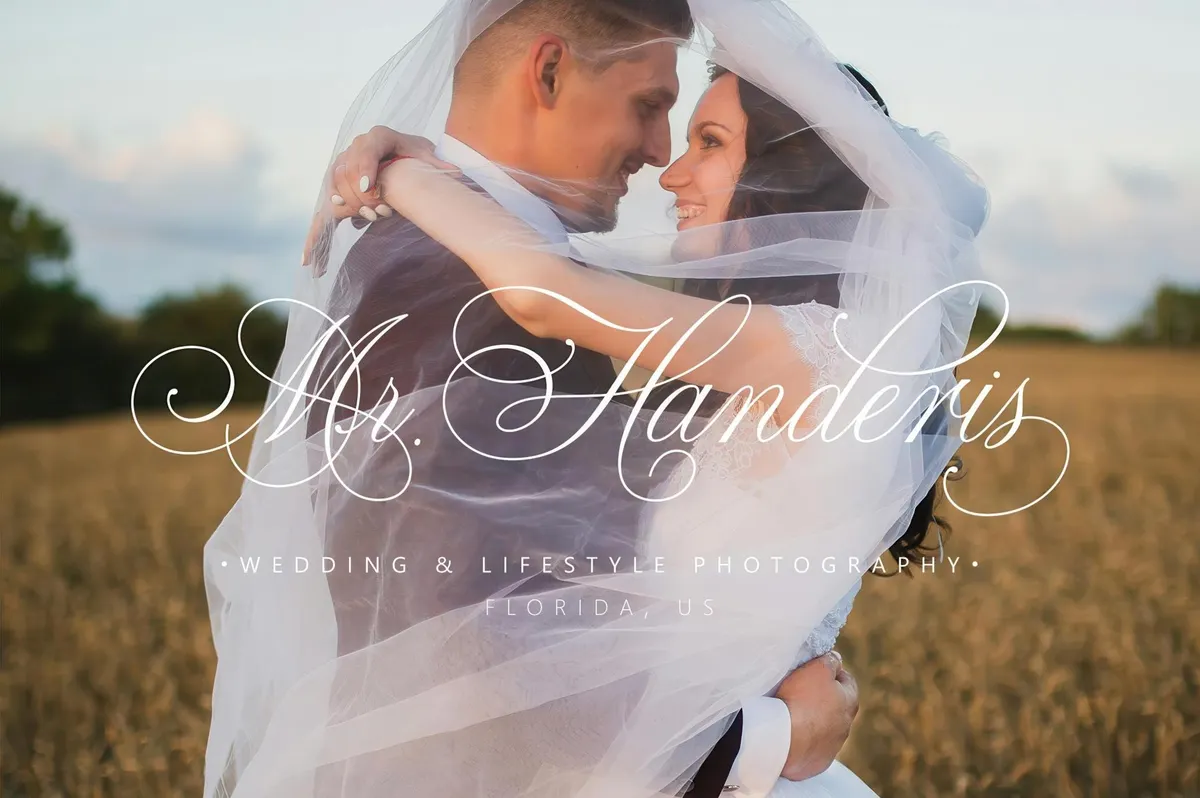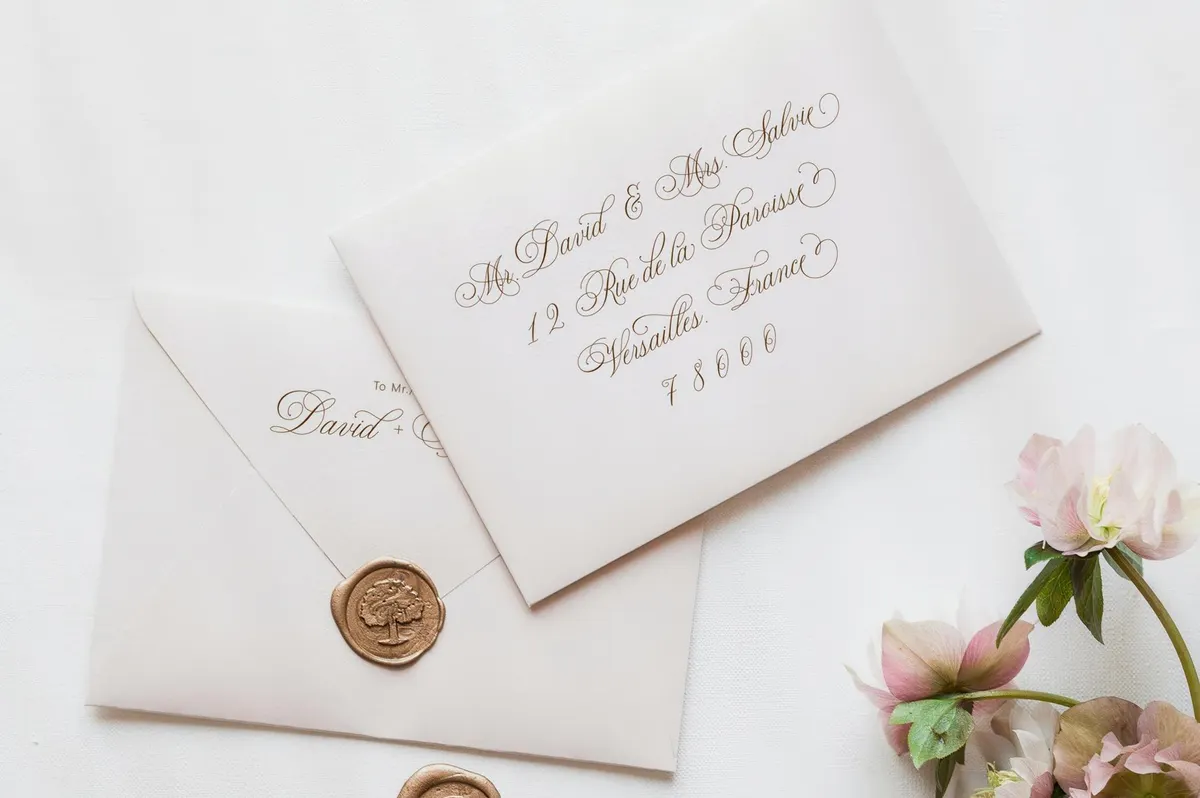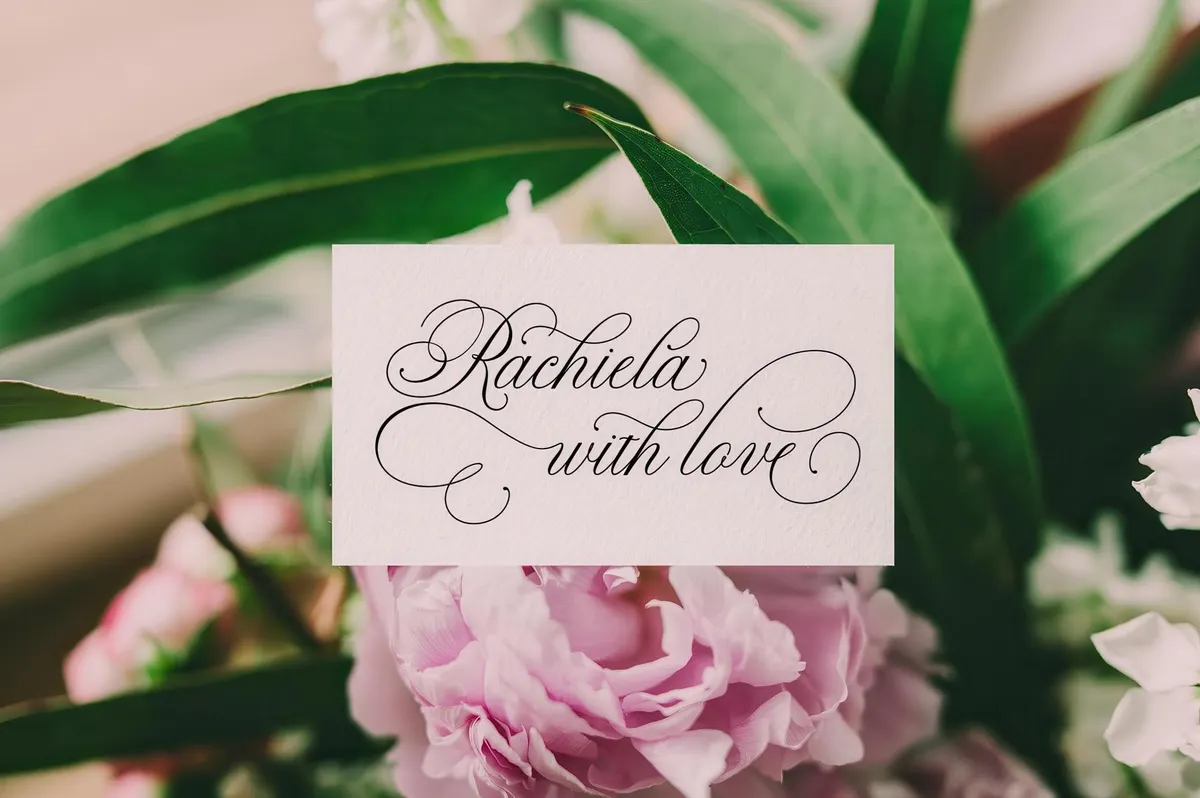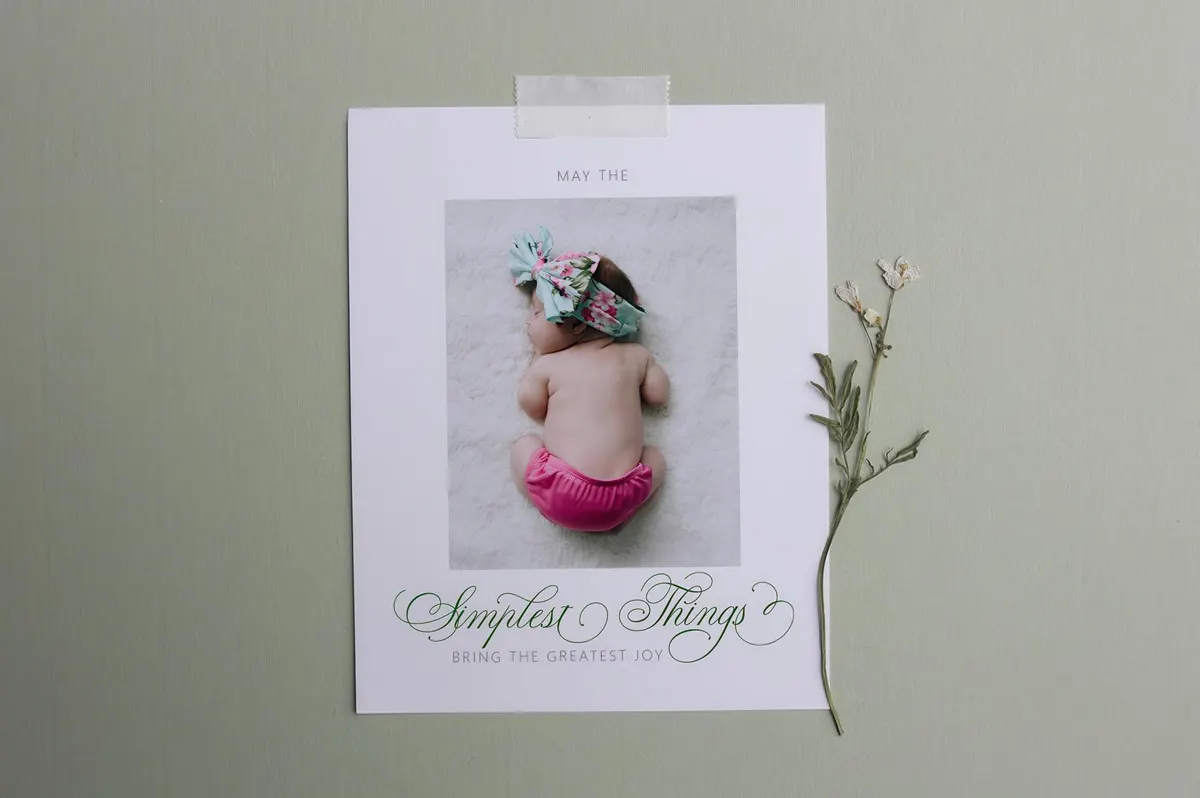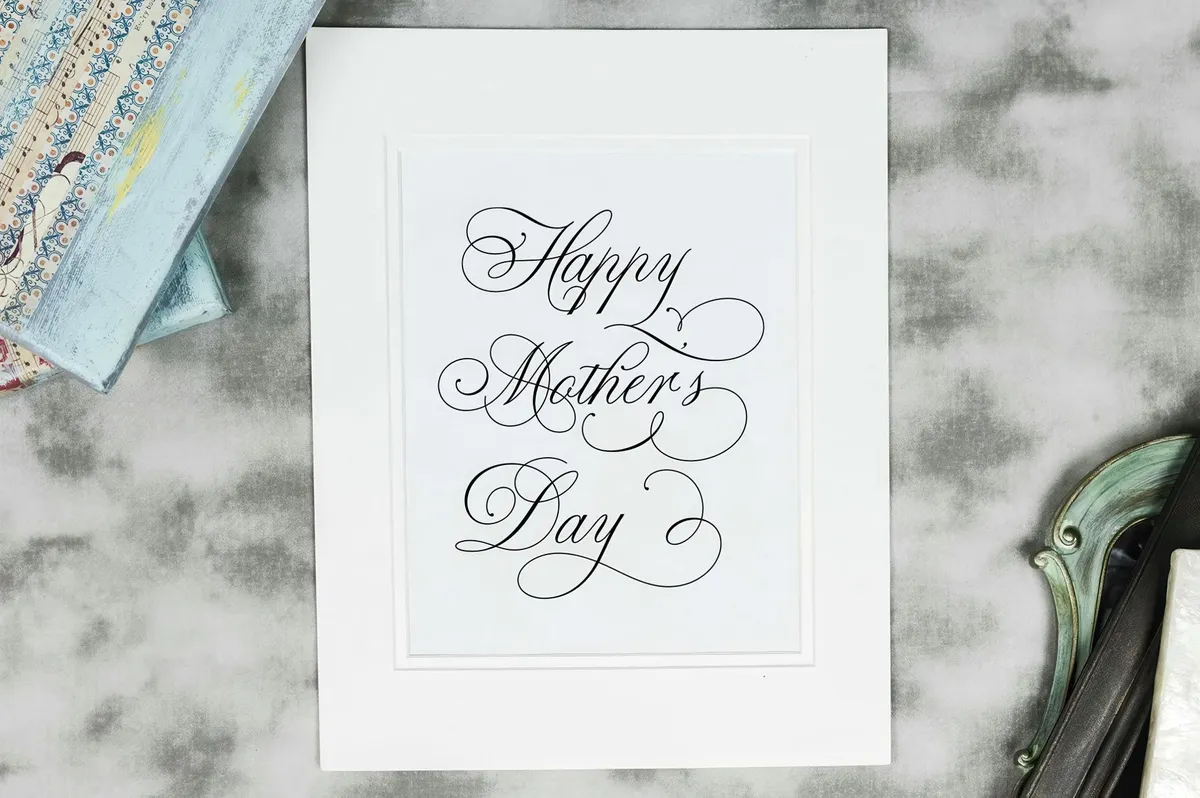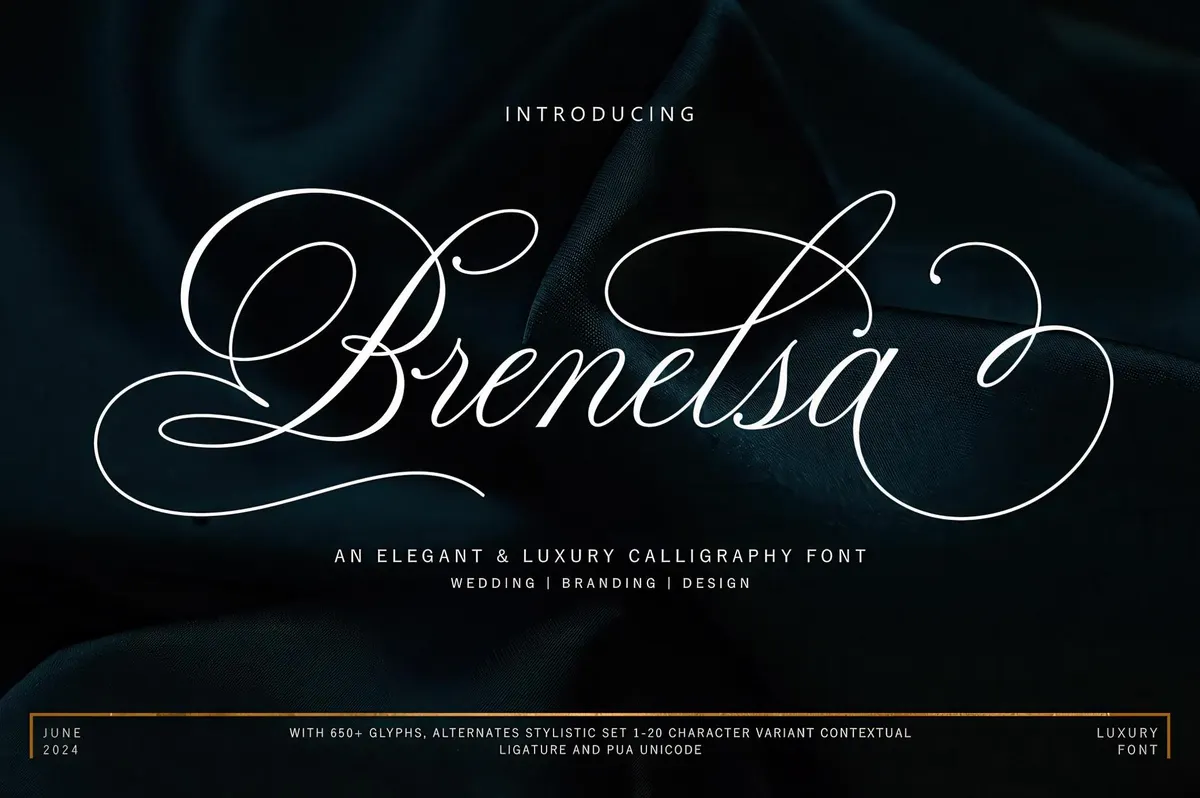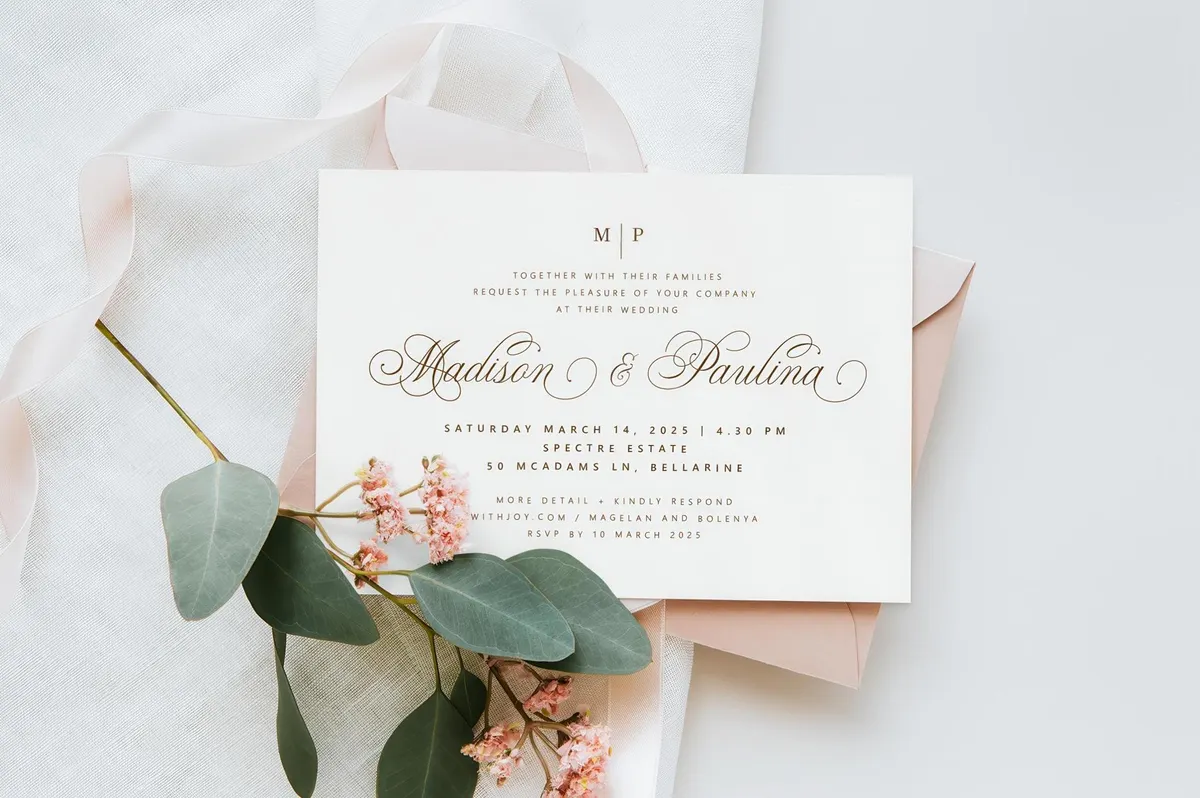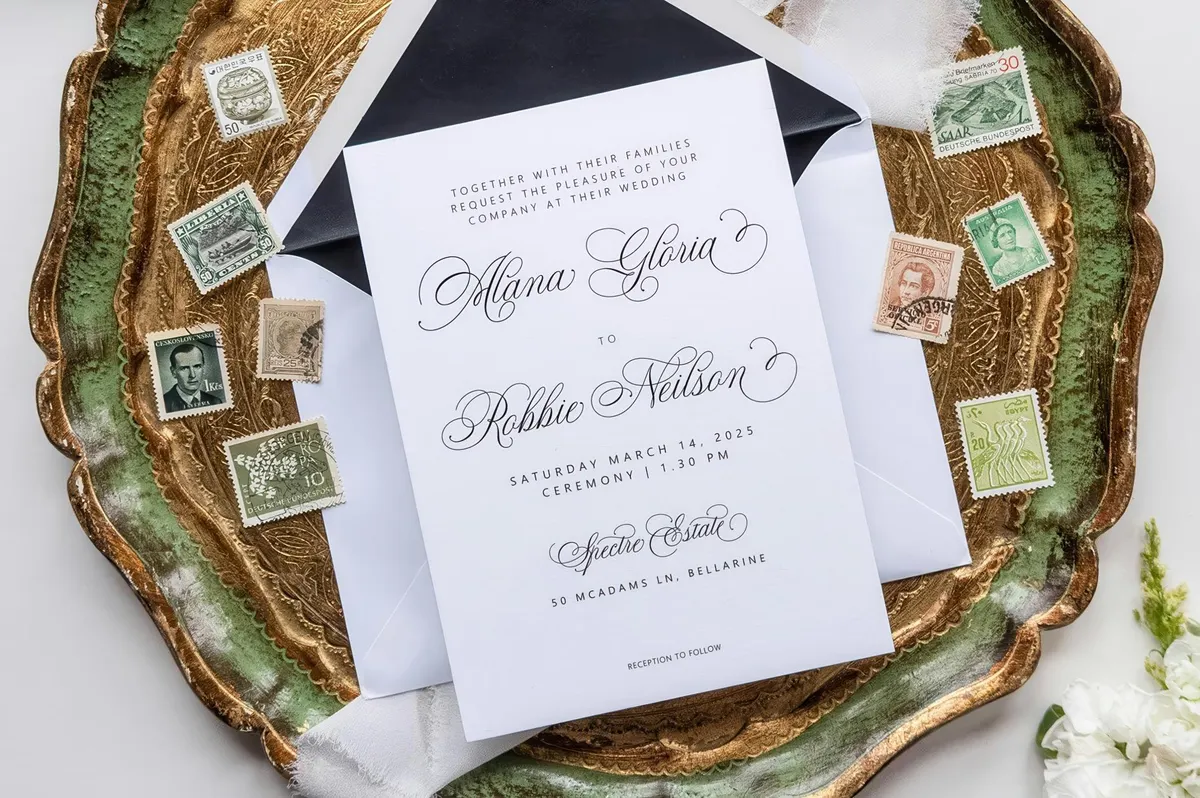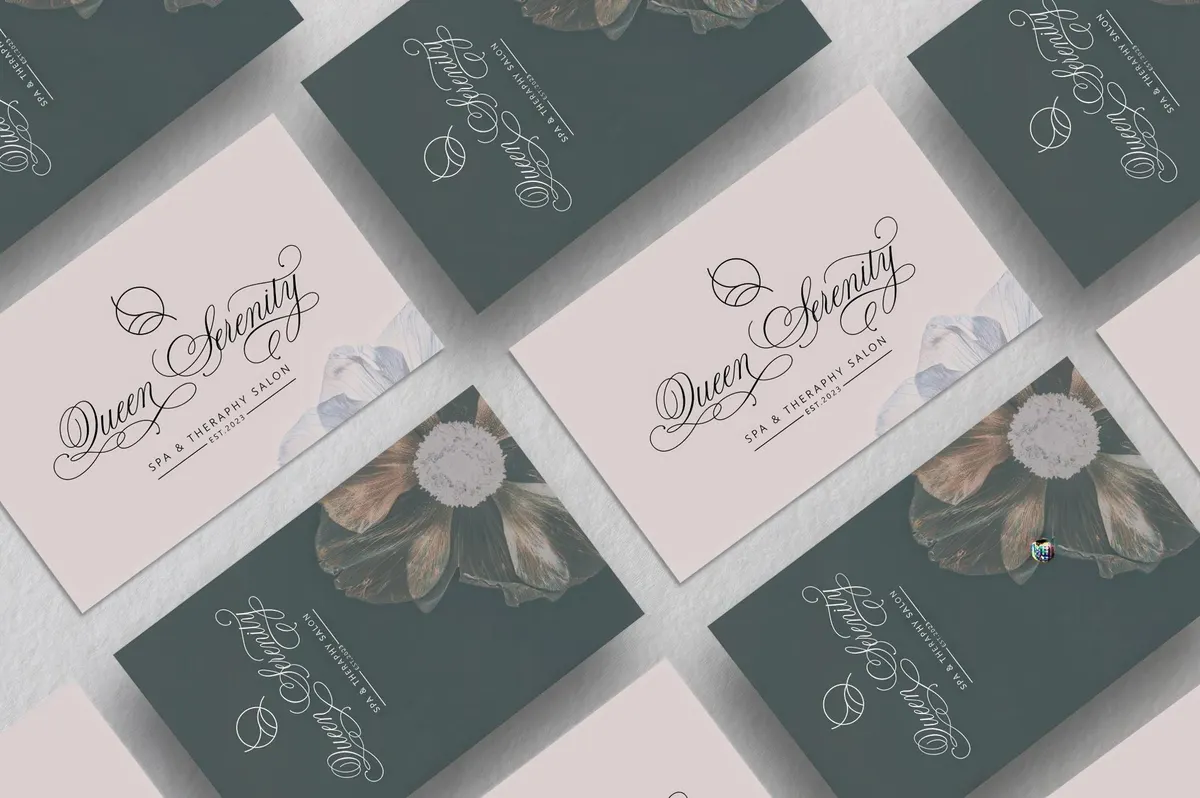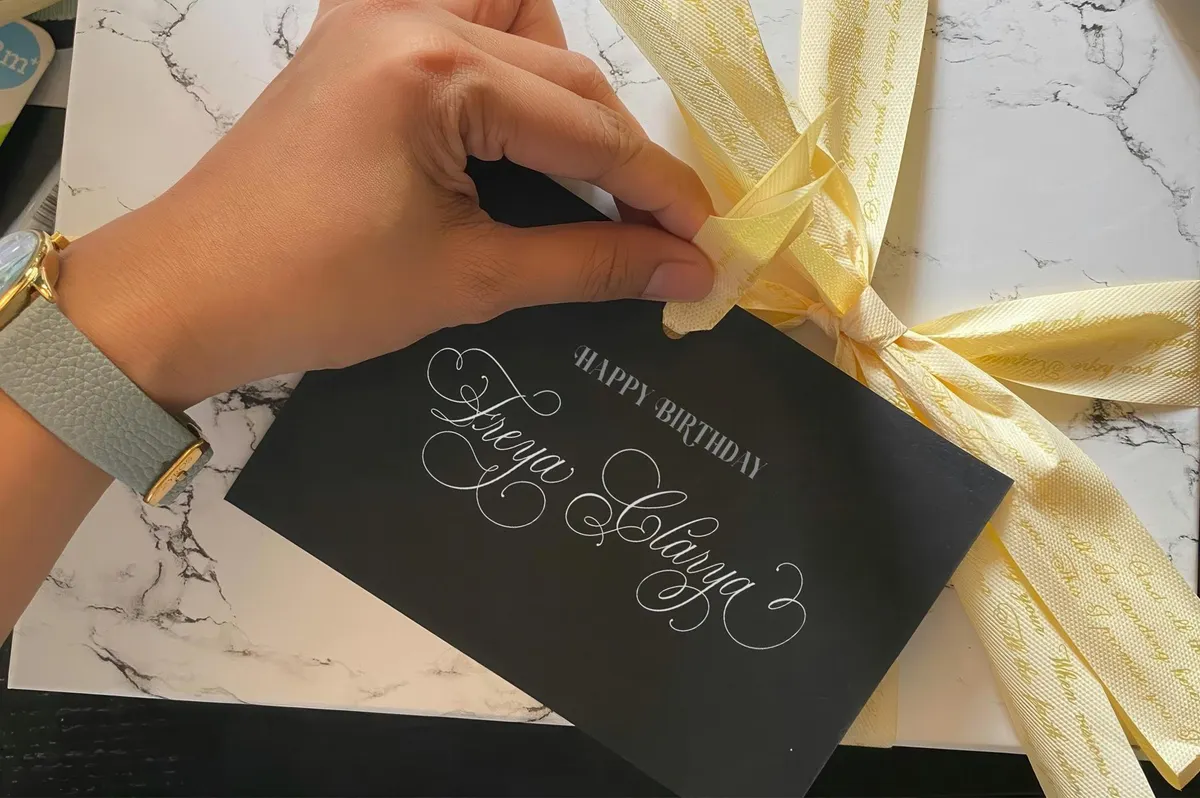
Brenelsa Script Font
Brenelsa Script is what wedding dreams are written in. If fonts wore gowns, this one would arrive in silk and diamonds, fashionably late, and steal every stare in the room. With its cascading swashes, intricate ligatures, and over 650 glyphs that seem hand-spun by a calligraphy godmother, Brenelsa doesn’t just suit wedding invitations — it is the wedding invitation. Designed to impress before the ceremony even begins, it turns every RSVP, menu card, and name tag into a keepsake. OpenType features like Stylistic Sets 1–20, contextual alternates, and a full bouquet of swirls are tucked inside, with PUA Unicode access to let you style freely in any design software.